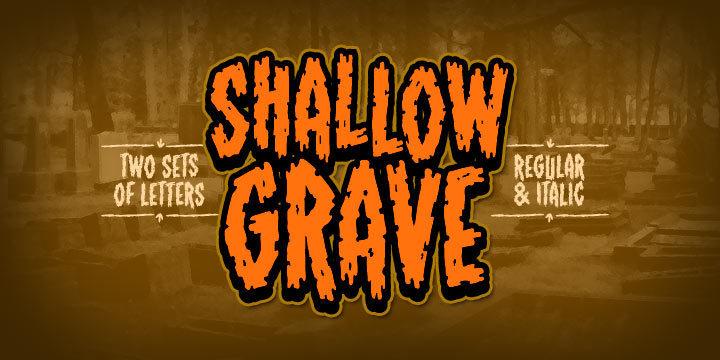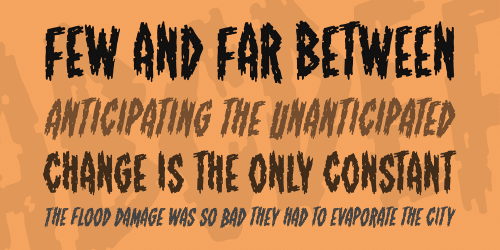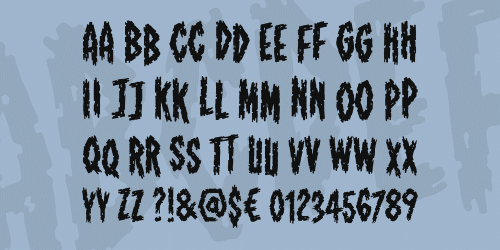
Here we have a classic horror font with differing upper and lowercase keys. Comes with Regular and Italic. Perfect for all this year’s Halloween festivities, and for gory graphics all the year long!
- Designer: Nate Piekos